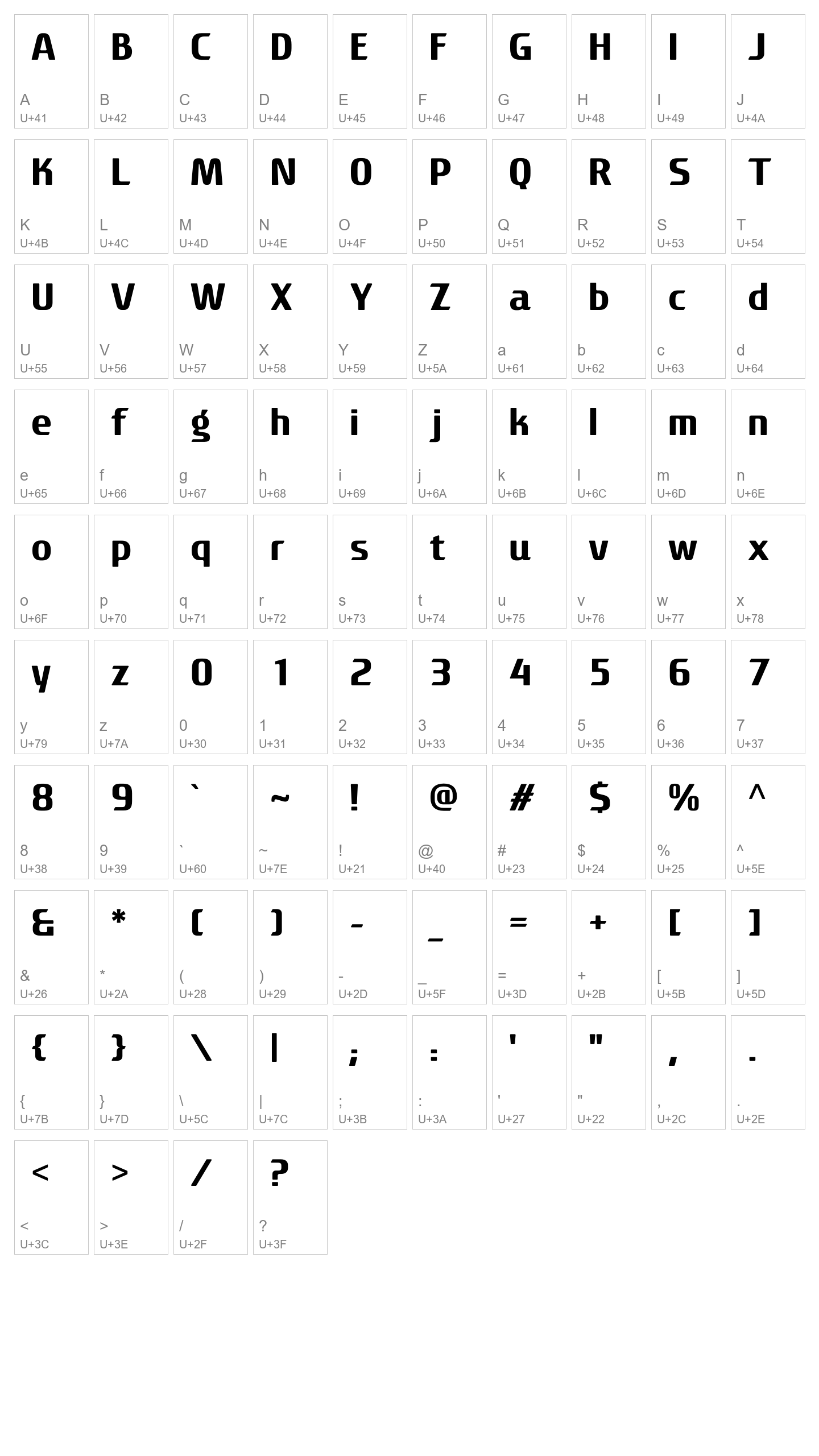
LT Sonoma
Author: LyonsType
A unique typeface inspired by one of the wordmarks of one of Sony's products, also named after the latest version of the macOS.